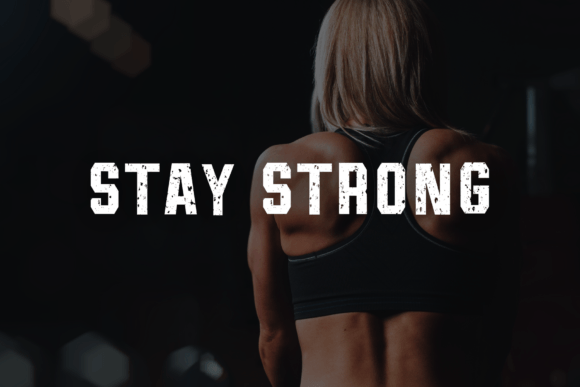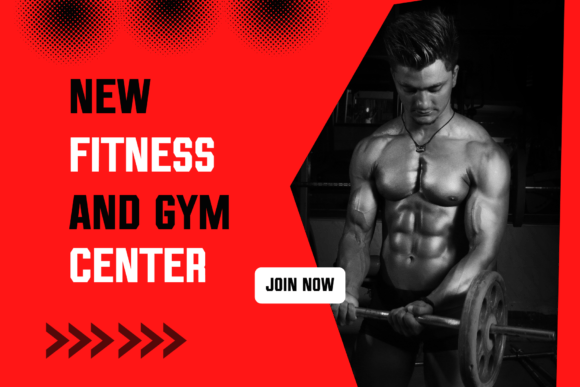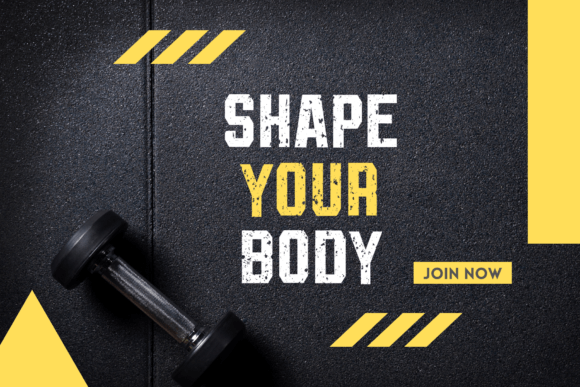
Introduction to Game Font
Have you ever been stuck in the middle of a creative project, scrolling through your font library, desperate for the perfect typeface to bring your idea to life? It’s a frustrating feeling, but one that’s easily avoided with the right design resource. For designers, finding the perfect font can be a game-changer – and that’s where Game Font comes in.
This modern and dynamic font is the ultimate addition to any designer’s toolkit, capable of elevating even the most mundane designs into something truly special. With its sleek lines and versatile style, Game Font is the perfect choice for any creative project, from graphic design to web development.
Not only is Game Font a high-quality design resource, but it’s also available for a free download, making it an accessible option for designers of all levels. Whether you’re working on a personal project or a professional one, Game Font is sure to be a valuable asset – and its transparent background makes it easy to use in a variety of different contexts.
Key Features of Game Font
- High-quality font with a transparent background, ideal for creative projects requiring a unique design element.
- Designed specifically for use in games, animations, and other multimedia applications, making it a valuable design resource.
- Features a clean and modern design with a high level of detail, suitable for use in a variety of creative projects.
- Includes a comprehensive character set, including letters, numbers, and symbols, making it a versatile design resource.
Honest Review: Game Font
As a designer, I’m always on the lookout for unique and high-quality fonts to elevate my creative projects. Game Font has caught my attention, and I’m excited to share my honest review.
- Wide range of styles: Game Font offers a vast collection of fonts, each with its own distinct personality, making it perfect for various creative projects.
- Transparent background: Many of the fonts have a transparent background, allowing for seamless integration with your design elements.
- Limited customization options: While the fonts are high-quality, I found that there are limited customization options available, which might be a drawback for some designers.
- Not suitable for complex designs: Game Font might not be the best choice for intricate or complex designs, as the fonts can become overwhelming.
Overall, Game Font is a great resource for designers looking for high-quality fonts to enhance their creative projects. While it has its limitations, I appreciate the wide range of styles and the free download option. It’s definitely worth checking out, especially for designers working on game-related projects or those who need a unique font for their next creative project.
Game Font
Game Font is a versatile design resource perfect for creative projects requiring a high-quality, eye-catching text style. Its transparent background allows for seamless integration into various design platforms.
Tips for Getting the Most Out of Game Font
For optimal results, use Game Font in conjunction with a contrasting background color. Experiment with different font sizes and styles to create a visually appealing design.
Game Font is ideal for game-related projects, such as game menus, character names, and game instructions. It’s also suitable for creative projects like posters, flyers, and social media graphics.